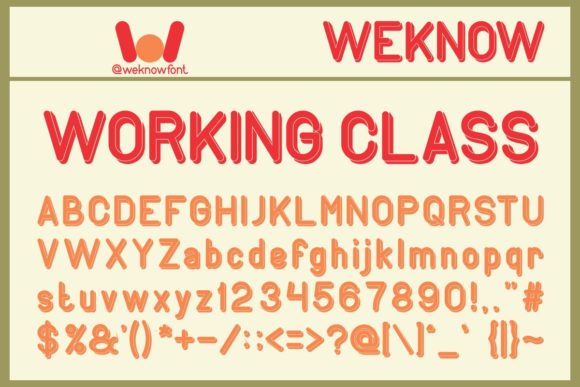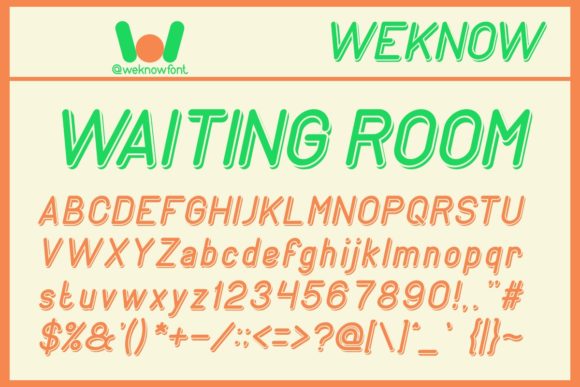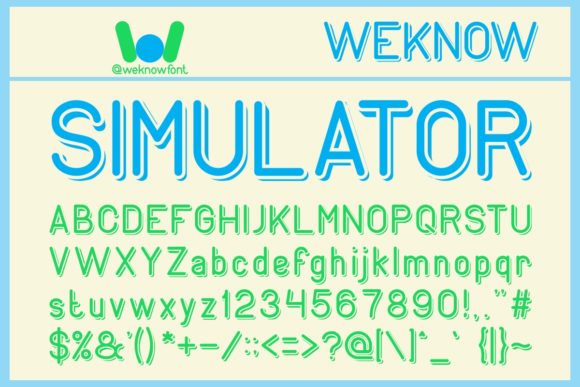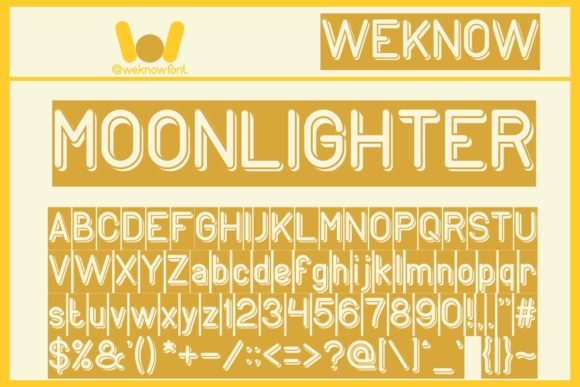
Introducing Generation Font: Elevate Your Creative Projects with a Simple yet Impactful Display Font
In the world of design, typography plays a crucial role in conveying messages, evoking emotions, and creating lasting impressions. Among the numerous fonts available, Generation Font stands out as a beacon of simplicity and elegance, perfect for those seeking to infuse their creative projects with a touch of sophistication. Generation is a simple and neat lettered display font that promises to make your ideas stand out in a crowded digital landscape.
The Allure of Generation Font
Generation Font is more than just a typeface; it’s a design statement. Its clean lines and uncomplicated structure make it an incredibly versatile font, suitable for a wide range of applications, from branding and advertising to digital media and crafting projects. The beauty of Generation lies in its ability to blend into various design contexts while maintaining its unique charm and character.
Key Features of Generation Font
- Simplicity: The font’s straightforward and uncluttered design ensures that your message is delivered clearly and effectively, without any distractions.
- Elegance: Despite its simplicity, Generation Font exudes a certain level of sophistication that can elevate the aesthetic appeal of your projects.
- Versatility: Its neat lettering makes it suitable for headings, titles, and short texts, allowing designers to experiment with various layouts and compositions.
- Readability: The font’s clear and distinct letters ensure high readability, even at smaller sizes, making it perfect for digital platforms and print materials alike.
Applications of Generation Font
The applications of Generation Font are vast and varied. Here are a few ways designers and crafters can utilize this font:
- Branding: Use Generation Font to create memorable logos, business cards, and letterheads that reflect your brand’s personality.
- Digital Media: Enhance your website, blog, or social media graphics with Generation Font, making your content more engaging and visually appealing.
- Advertising: Whether it’s for print or digital ads, Generation Font can help your message stand out and grab attention.
- Crafting Projects: Add a professional touch to your DIY projects, such as handmade cards, scrapbooking, and craft tutorials.
Tips for Using Generation Font Effectively
To maximize the impact of Generation Font, consider the following tips:
- Pair it with Other Fonts: Experiment with font combinations to create visual interest. Generation Font pairs well with both serif and sans-serif fonts.
- Play with Sizes: Utilize different font sizes to create a hierarchy of information and draw attention to key messages.
- Experiment with Colors: While Generation Font looks great in black and white, don’t be afraid to experiment with colors that match your brand or project’s aesthetic.
Generation Font is a simple yet powerful tool for designers and crafters looking to add a touch of elegance and sophistication to their projects. Its simplicity, elegance, versatility, and readability make it an excellent choice for a wide range of applications. By incorporating Generation Font into your creative workflow, you’ll be able to create visually stunning and effective designs that stand out in today’s competitive digital landscape.